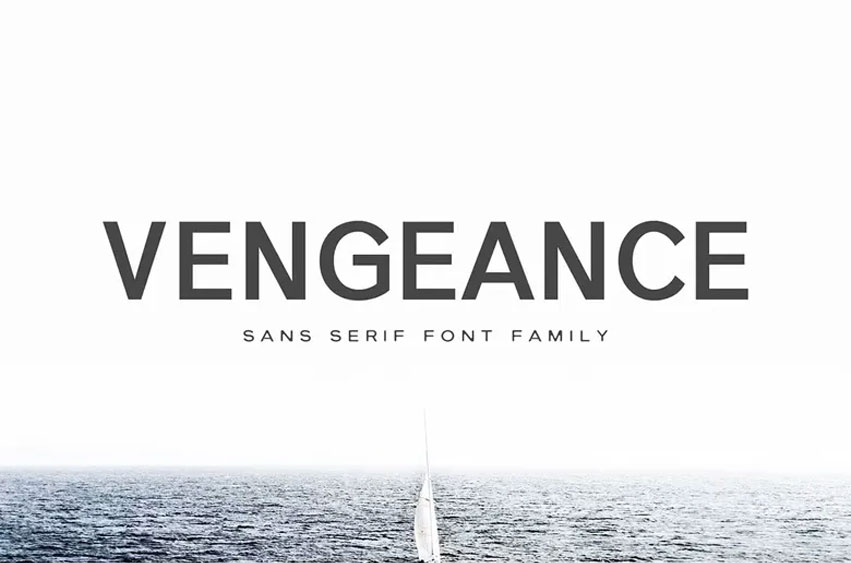
Vengeance Font
Vengeance Font is a flexible sans serif typeface featuring 7 unique styles. It includes a whole set of Latin characters and non-English letters making it easy to use for various projects. With its polished design, it ensures that each word looks distinct and refined.
Use it for headlines, branding, posters, presentations, packaging, quotes, logos, titles, web layouts, magazine headings, advertising, books, invitations and more. Vangence is a dependable choice for any creative project that needs style and clarity.